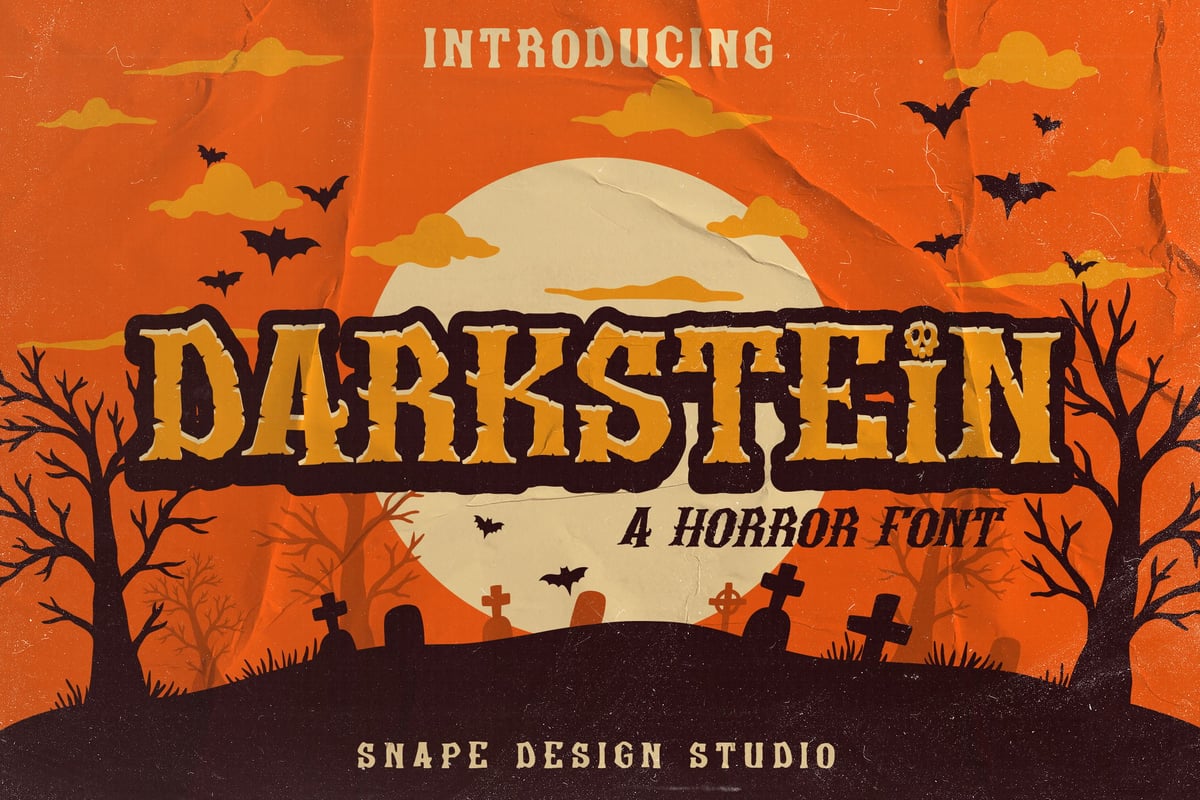
Darkstein - Horror Font
Transform your spookiest designs with Darkstein, a horror serif font that brings chilling atmosphere to every project. This scary and playful Halloween font delivers the perfect blend of terror and style for your horror-themed creations. Darkstein excels in Halloween party posters, spine-chilling movie titles, documentary projects, film credits, logos, game interfaces, book covers, headlines, and countless other frightening design applications. The typeface features complete uppercase and lowerc...